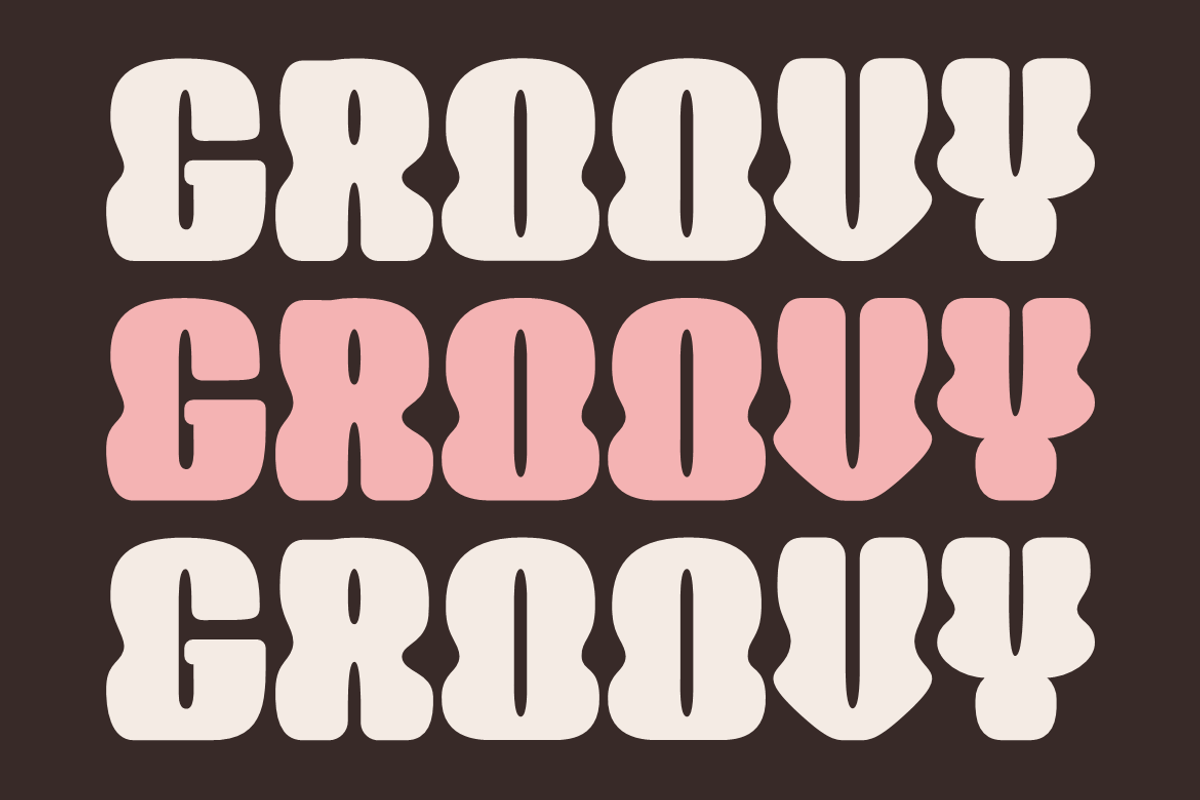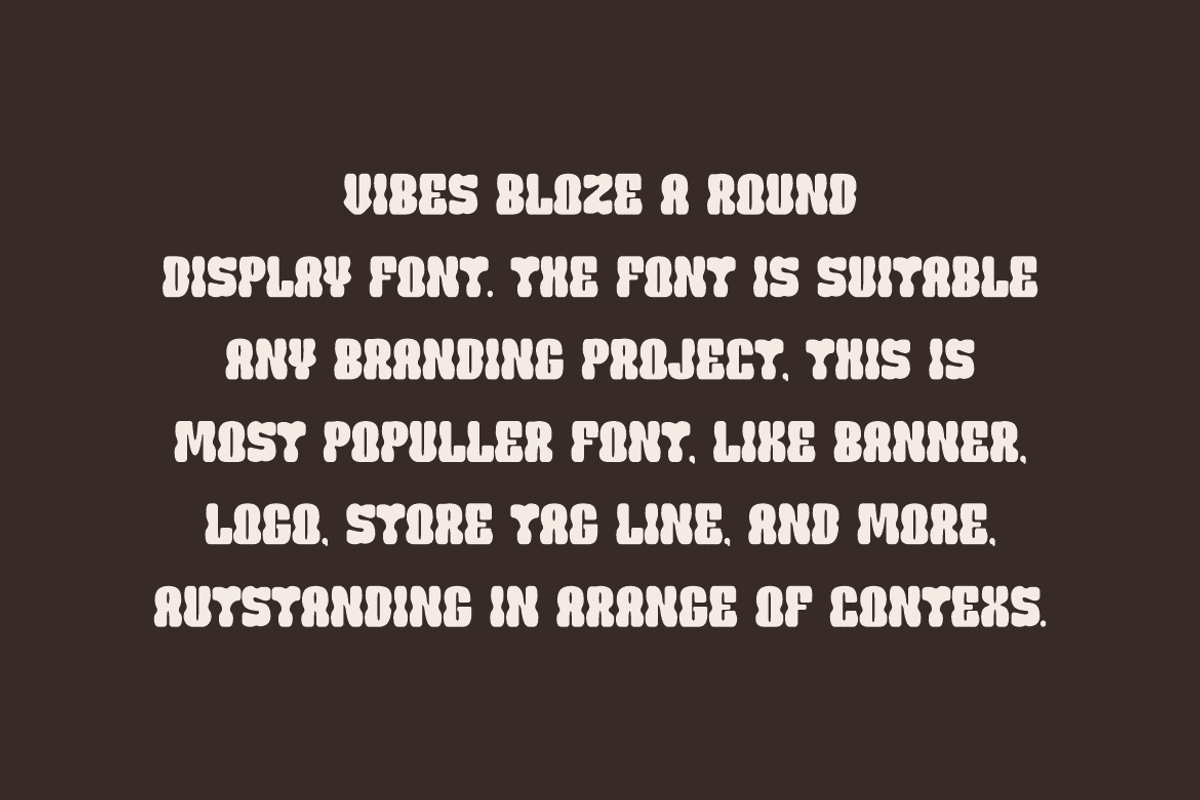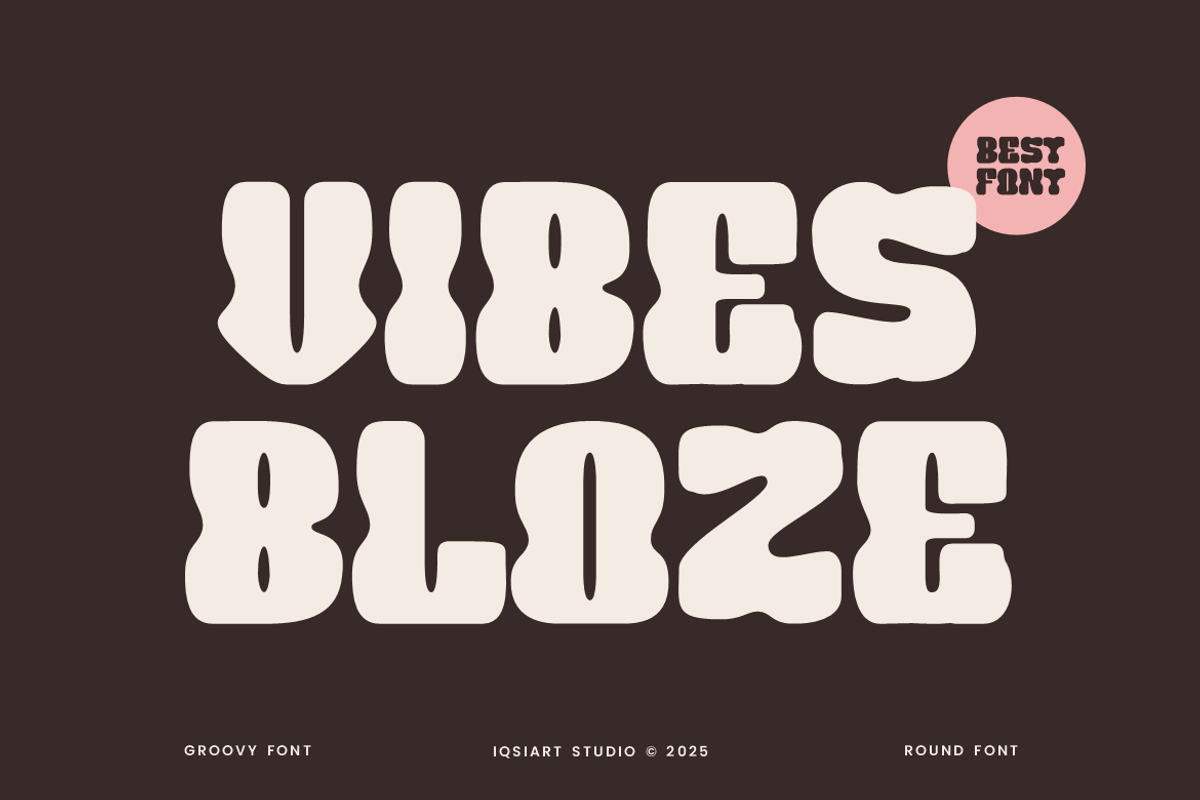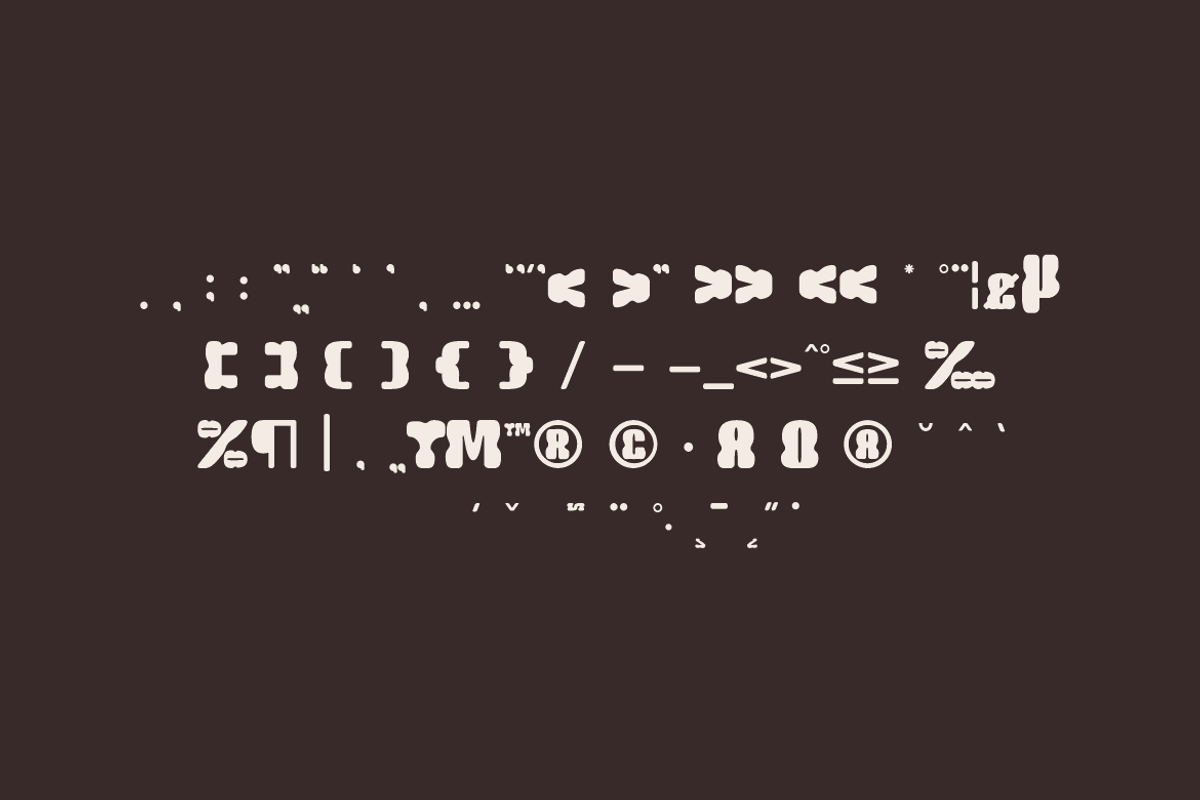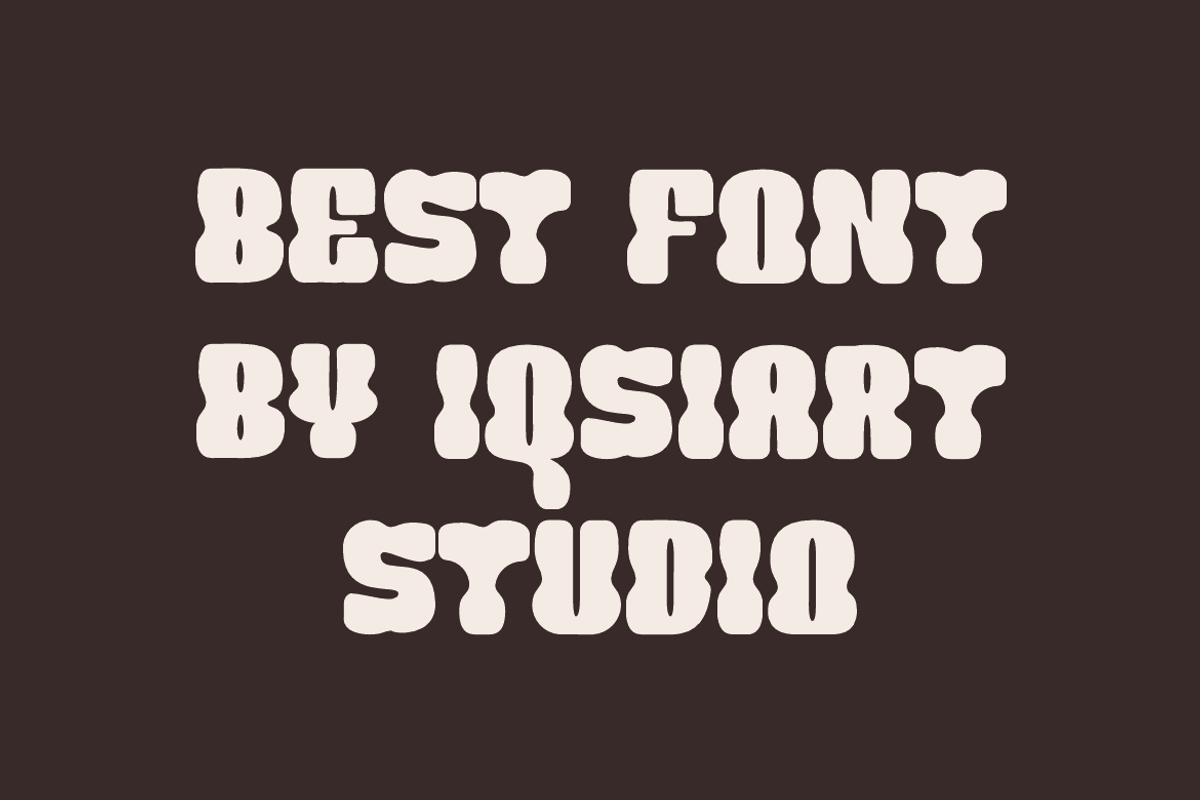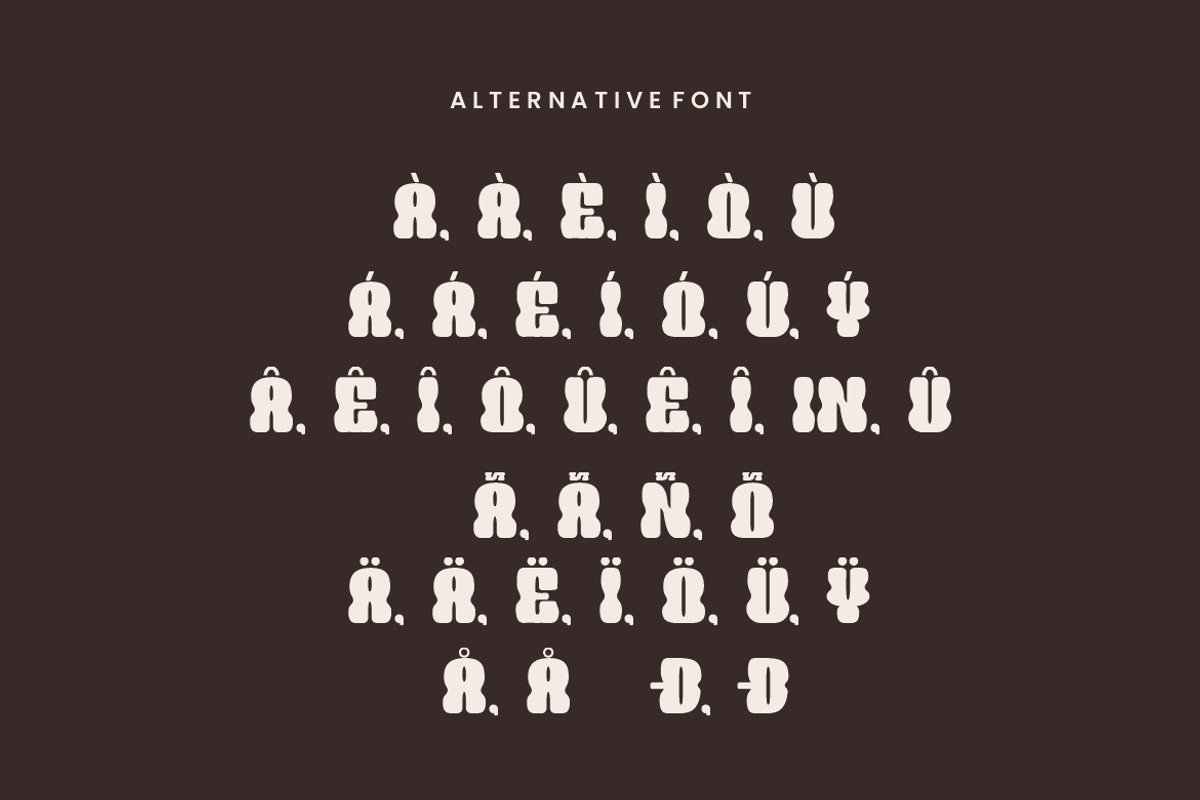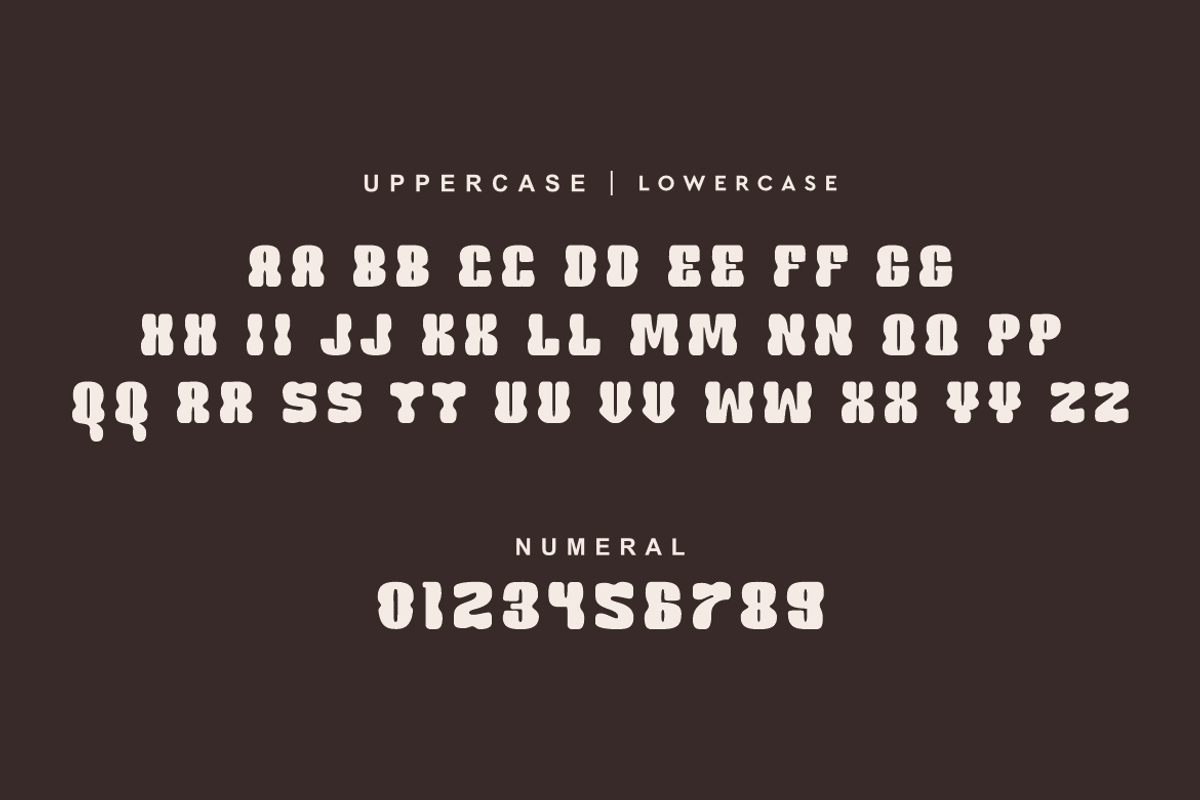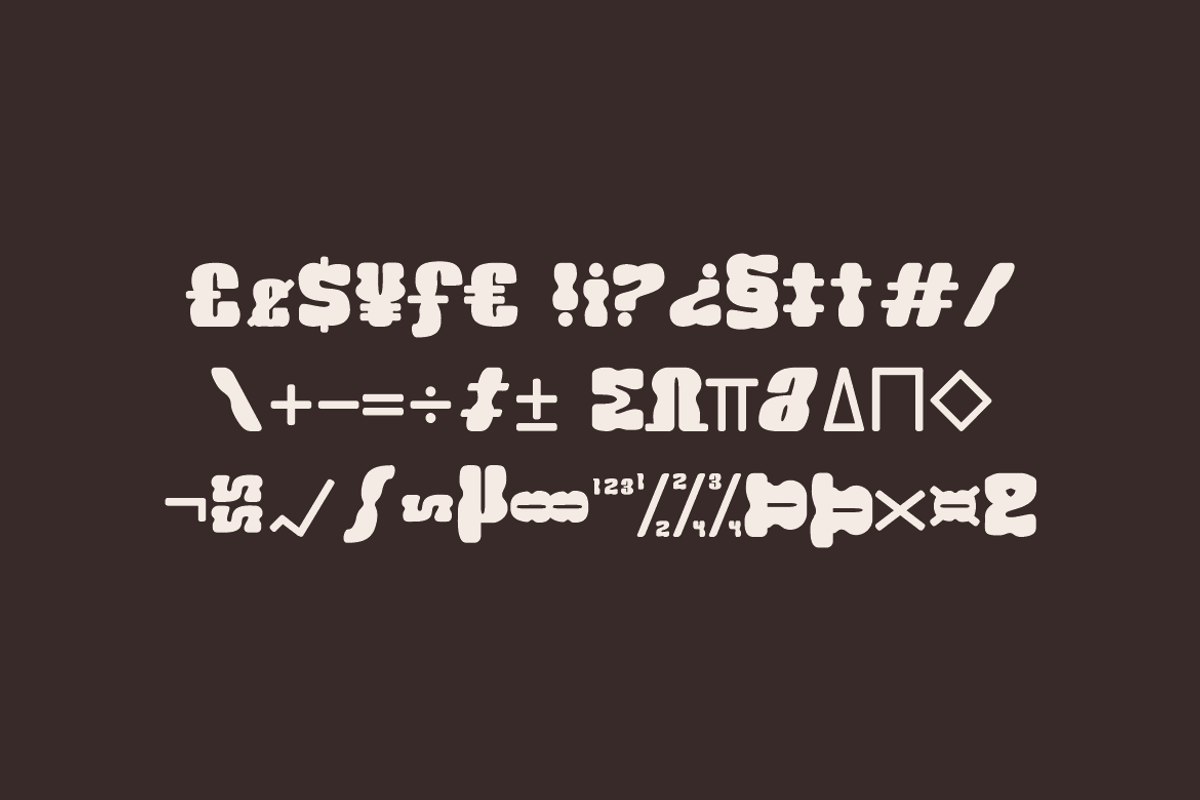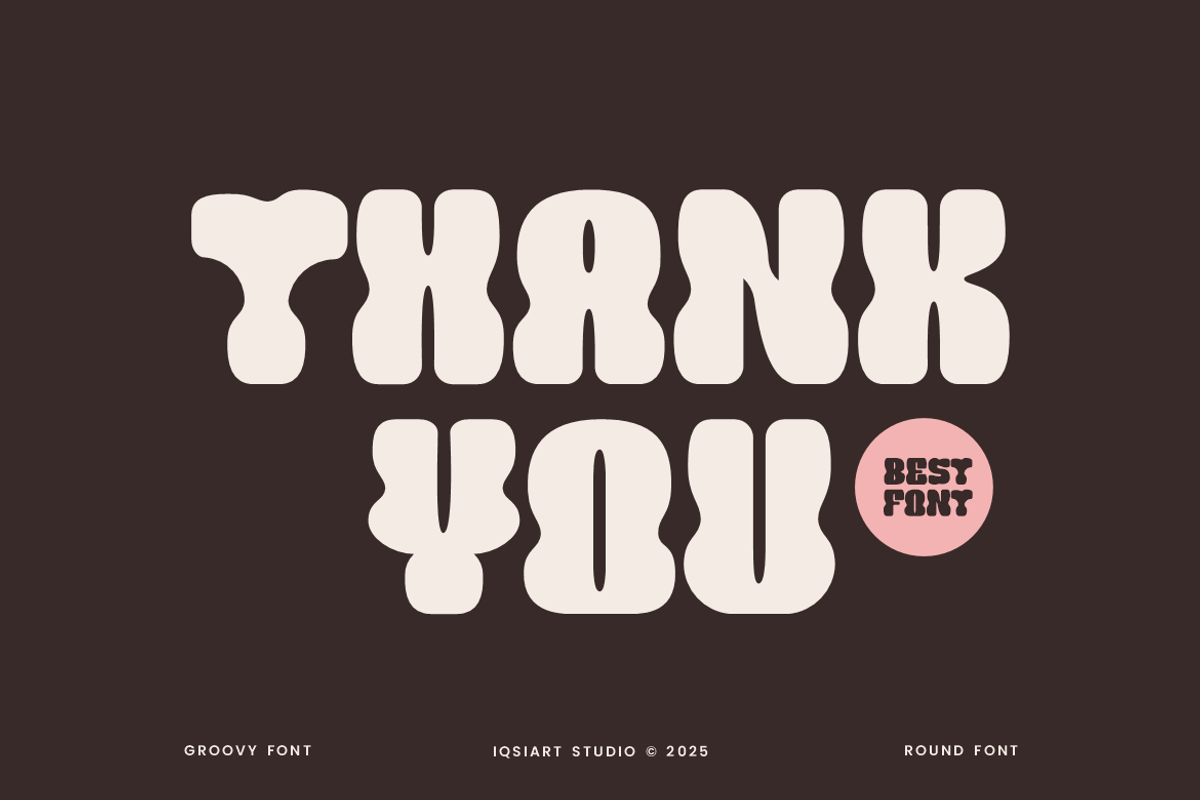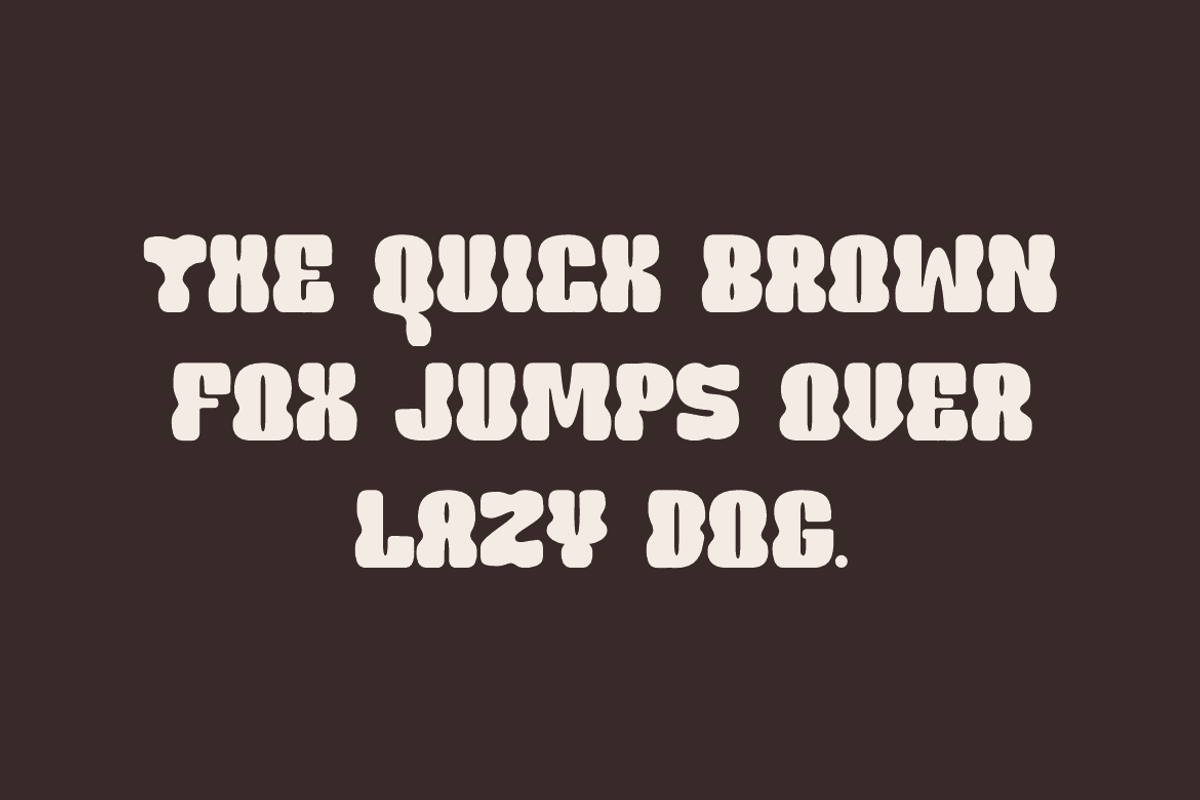
Vibes Bloze - Groovy Font
Vibes Bloze Font is a best and authentic display font. This font can be used for your various needs. We provide various themes and font styles. visit our profile to get a wide variety of themes and different font styles you need.